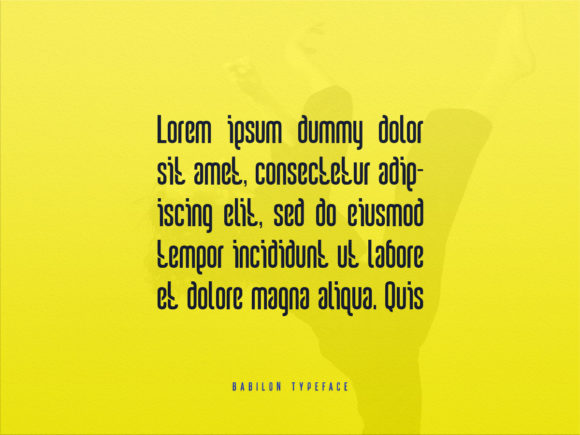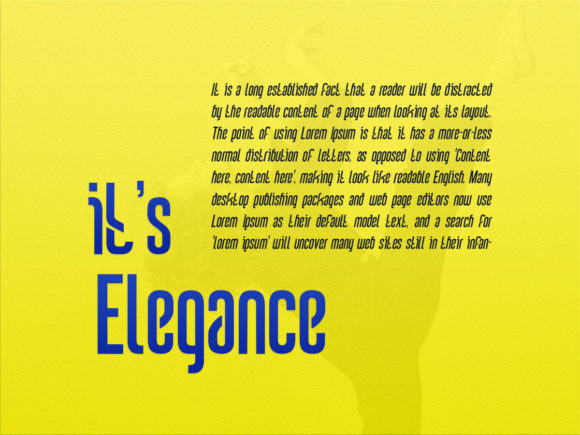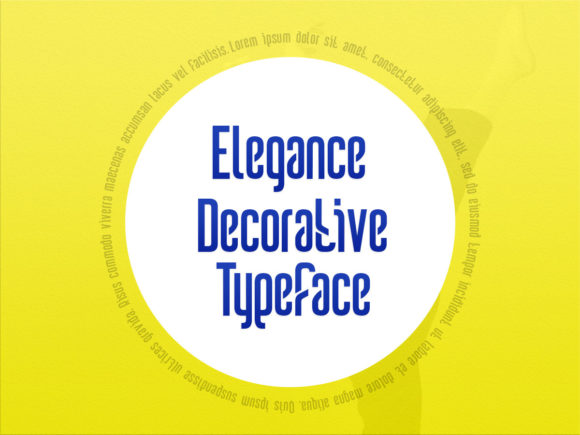
Babilon Font: Elevate Your Designs with a Touch of Minimal Elegance
In the world of typography, fonts play a pivotal role in conveying messages, evoking emotions, and adding aesthetic value to designs. Among the myriad of fonts available, the Babilon font stands out for its minimalistic yet impactful design. This article delves into the characteristics, uses, and benefits of the Babilon font, making it a must-read for designers, crafters, and anyone keen on elevating their creative projects.
The Essence of Babilon Font
Babilon is described as a minimal and neat display font. Its design embodies simplicity and elegance, making it an excellent choice for projects that demand a clean and sophisticated look. The font’s minimalistic approach doesn’t compromise on its ability to stand out; instead, it offers a unique charm that can enhance a wide range of creative endeavors.
One of the significant advantages of the Babilon font is its versatility. It can easily be matched to an incredibly large set of projects. Whether you’re working on a branding campaign, a website design, a packaging project, or even a crafting endeavor, Babilon can be seamlessly integrated. Its neutral yet distinctive style acts as a canvas, allowing your creativity to shine through without overpowering your design.
Why Choose Babilon Font?
There are several reasons why Babilon font should be on your radar:
- Minimalistic Design: Babilon’s clean lines and minimalistic approach make it perfect for modern designs that require a touch of elegance.
- Versatility: Its neutral design allows it to fit into a wide array of projects, from digital to print.
- Readability: Despite its minimalist design, Babilon maintains high readability, making it suitable for both headings and body text.
- Uniqueness: In a sea of common fonts, Babilon offers a distinctive look that can help your projects stand out.
Tips for Using Babilon Font Effectively
To maximize the potential of Babilon, consider the following tips:
- Pair it with Other Fonts: Babilon’s minimalistic design makes it an excellent pairing with more ornate or contrasting fonts, creating visual interest.
- Experiment with Sizes: Playing with different sizes can add hierarchy and depth to your designs.
- Use it for Headings and Titles: Its unique design makes it particularly effective for headings and titles where you want to grab attention.
Babilon font offers a refreshing blend of minimalism and elegance, making it a valuable addition to any designer’s or crafter’s toolkit. Its versatility, readability, and unique charm can elevate a wide range of projects, from digital designs to print materials. By incorporating Babilon into your creative process, you can add a touch of sophistication and distinction, ensuring your work stands out in a crowded creative landscape.